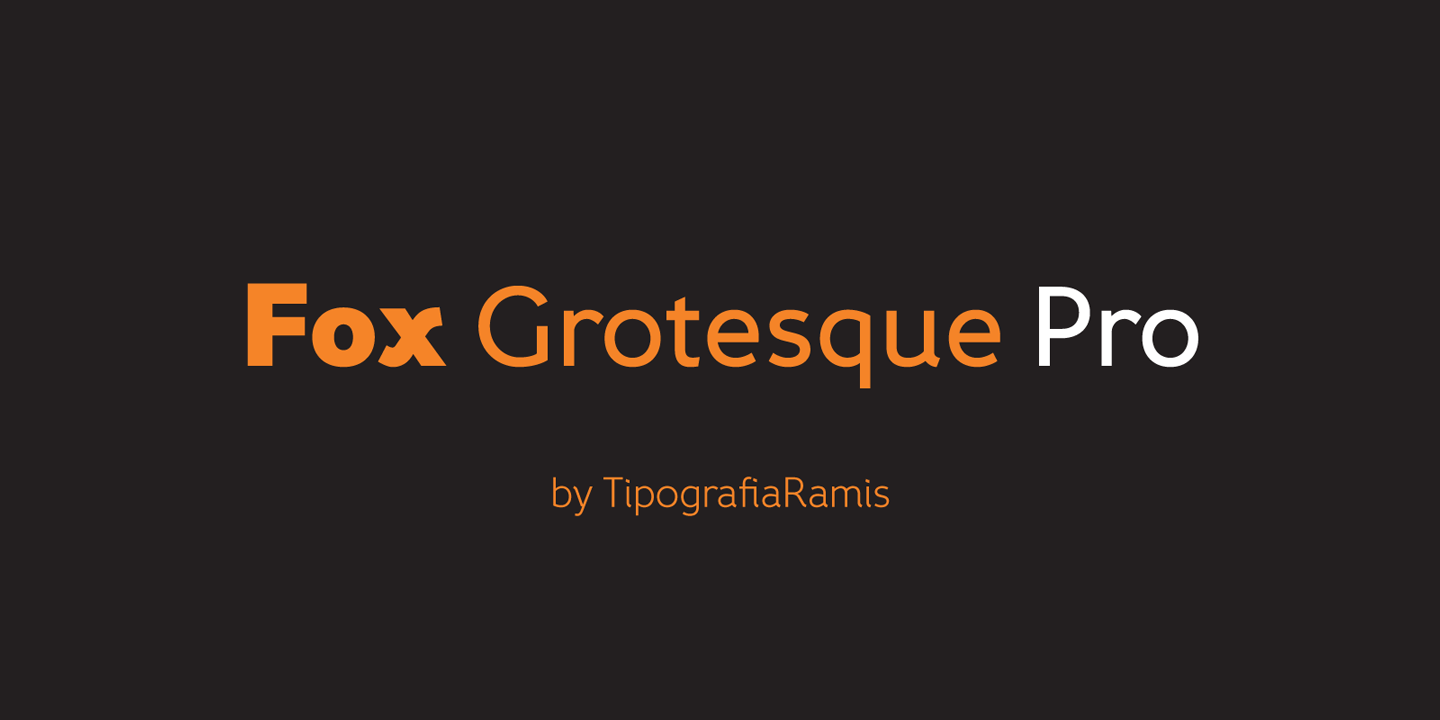
The Fox Grotesque Pro Font Free Download is ideal for editorial layouts, modern branding, magazine headlines, and web design, offering a clean, versatile look.
This font is exciting because its sleek, sans-serif design blends geometric precision with subtle warmth, making it perfect for bold, contemporary projects.
The Fox Grotesque Pro family includes Thin, Thin Italic, Light, Light Italic, Regular, Italic, Bold, Bold Italic, ExtraBold, and ExtraBold Italic styles, ensuring broad design flexibility.
Elevate your projects with the Fox Grotesque Pro Font Free Download, a sophisticated typeface designed by Ramiz Guseynov and published by TipografiaRamis. Released in OpenType format, this font supports most Latin languages and Cyrillic, with 619 glyphs and features like proportional/tabular figures, slashed zero, ligatures, and fractions. Ideal for creating striking headlines or legible body text, Fox Grotesque Pro balances modern minimalism with editorial elegance. Its versatility shines in print and digital media, ensuring crisp visuals on websites and apps. As 2025 design trends favor clean, functional typography, downloading Fox Grotesque Pro Font Free Download keeps your work sharp and professional. Test it today to explore its potential, and consider purchasing for commercial use to fully leverage its dynamic range.